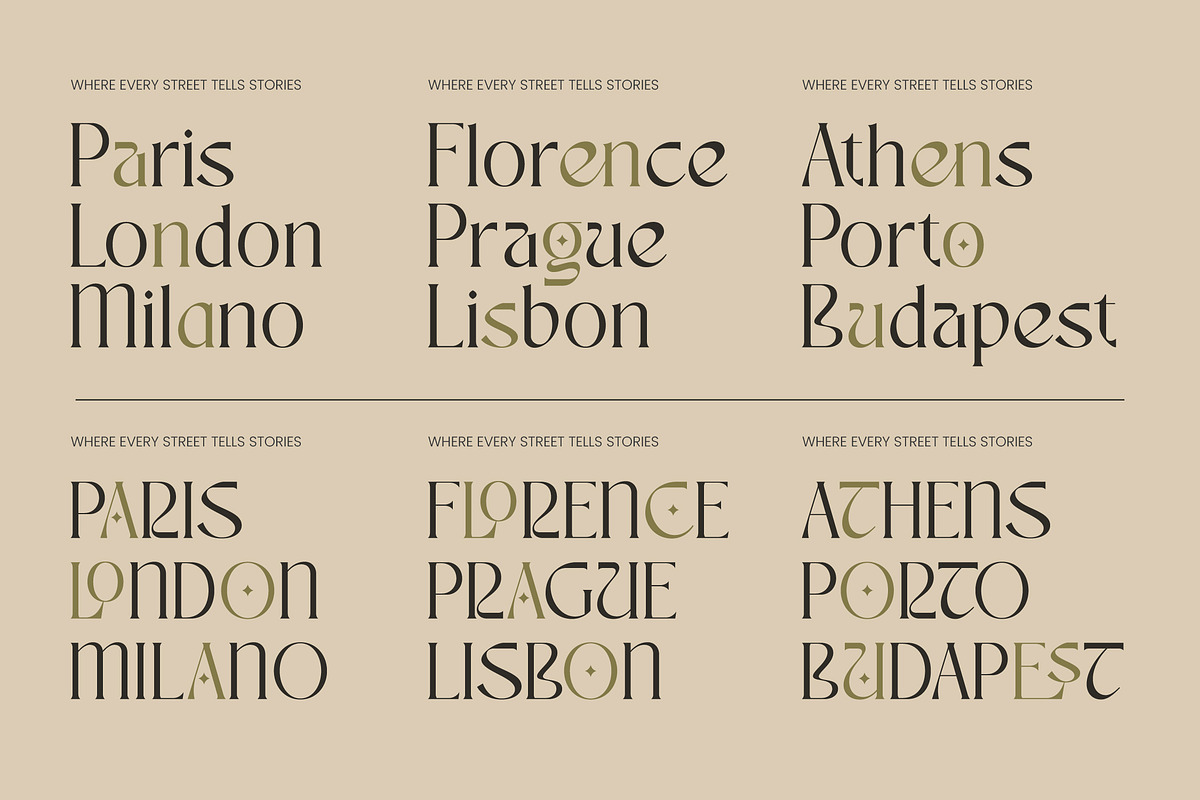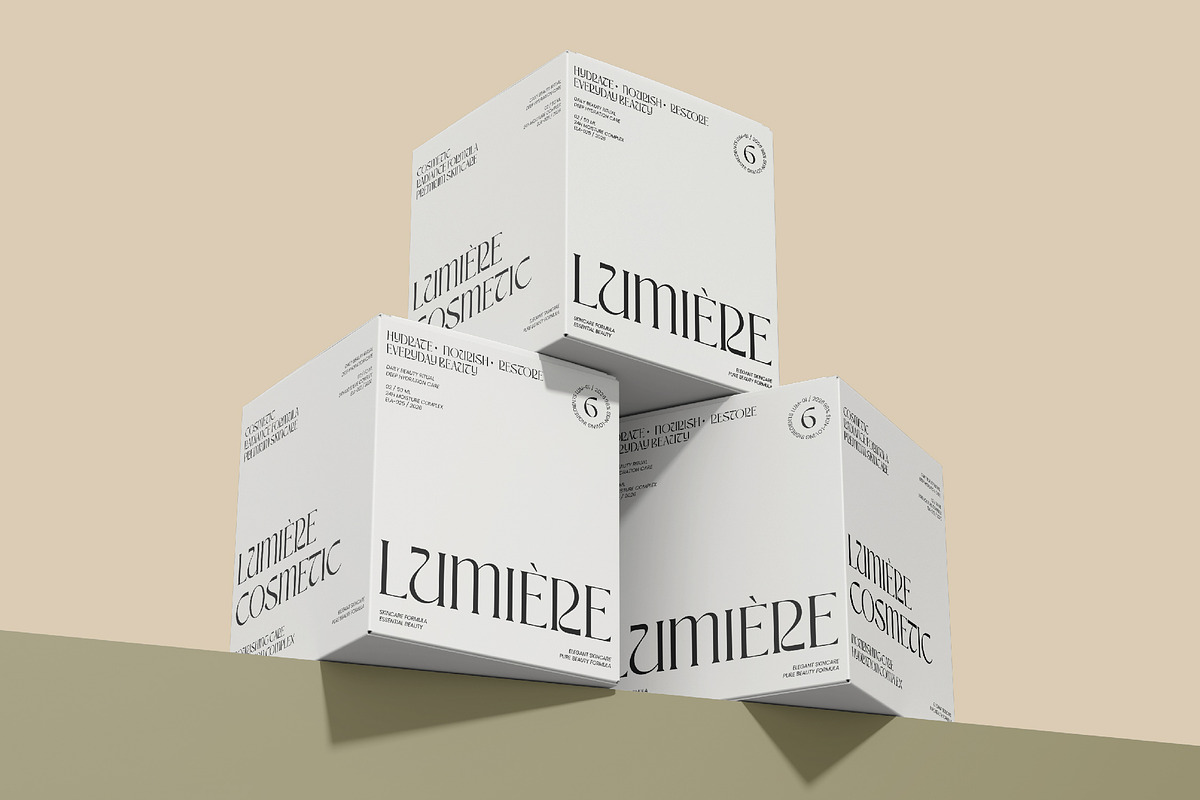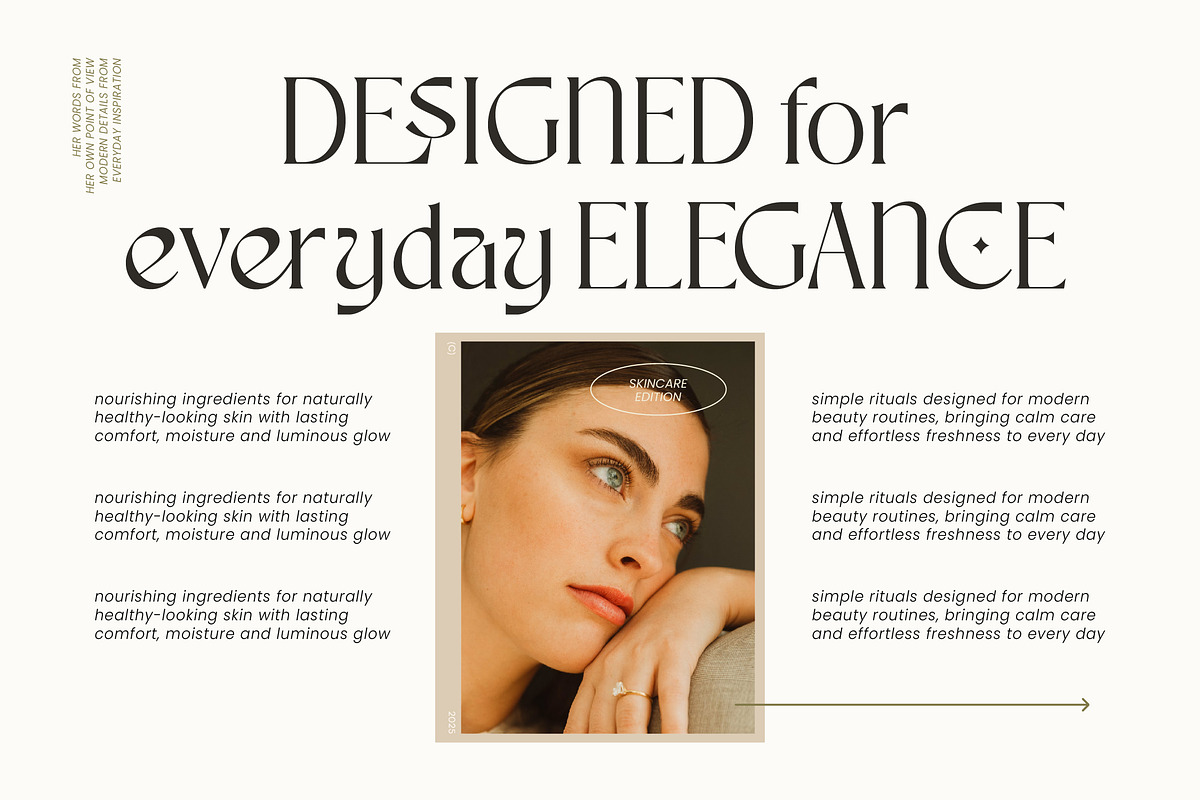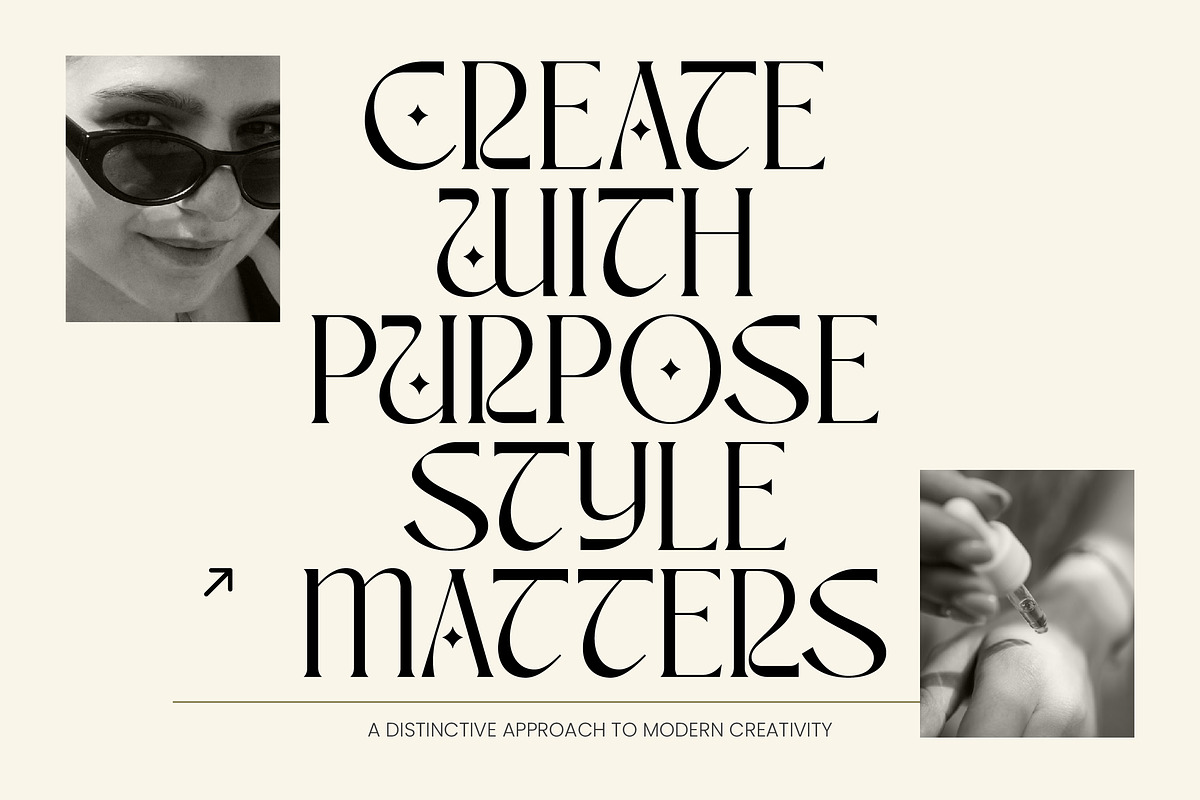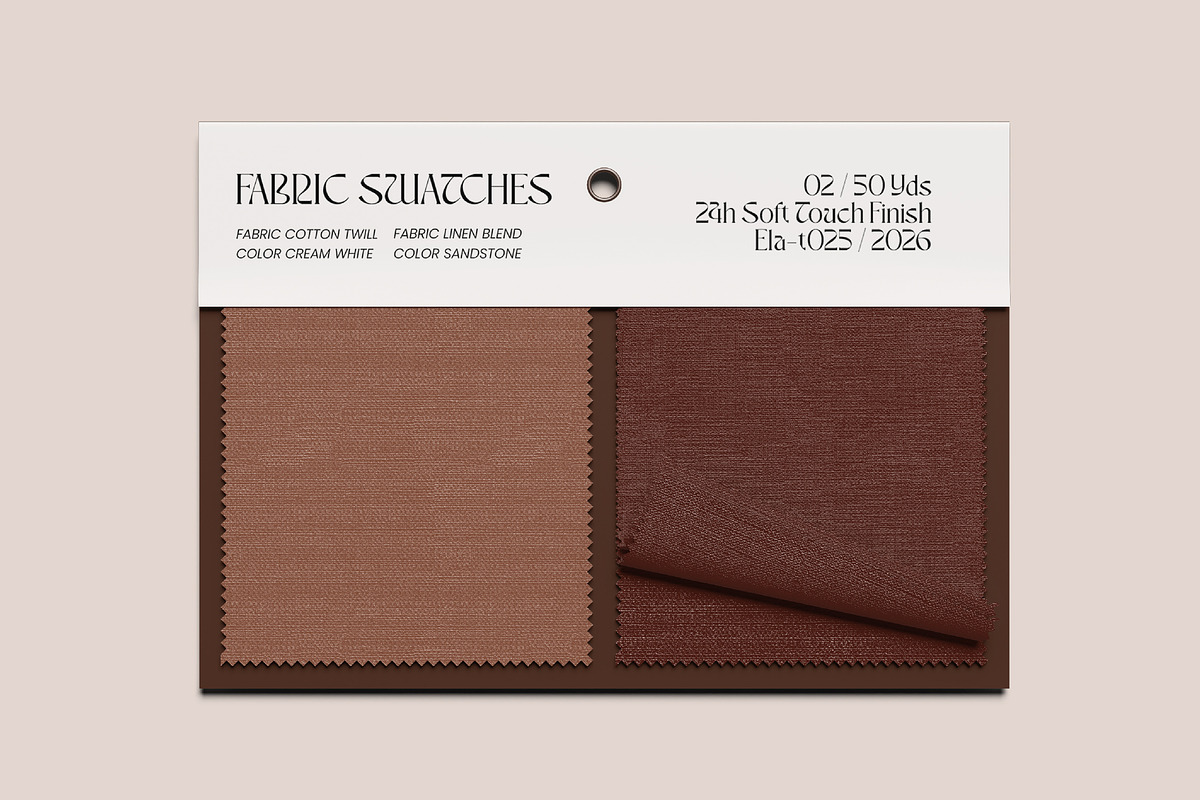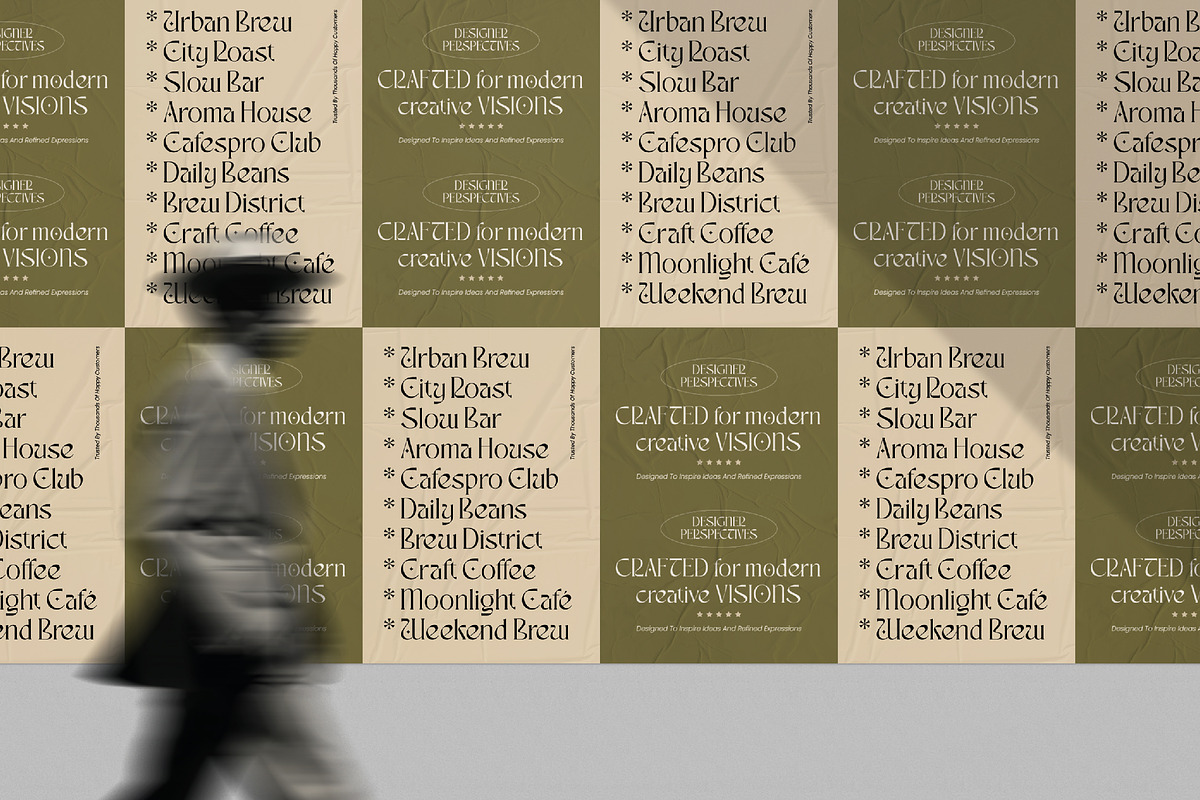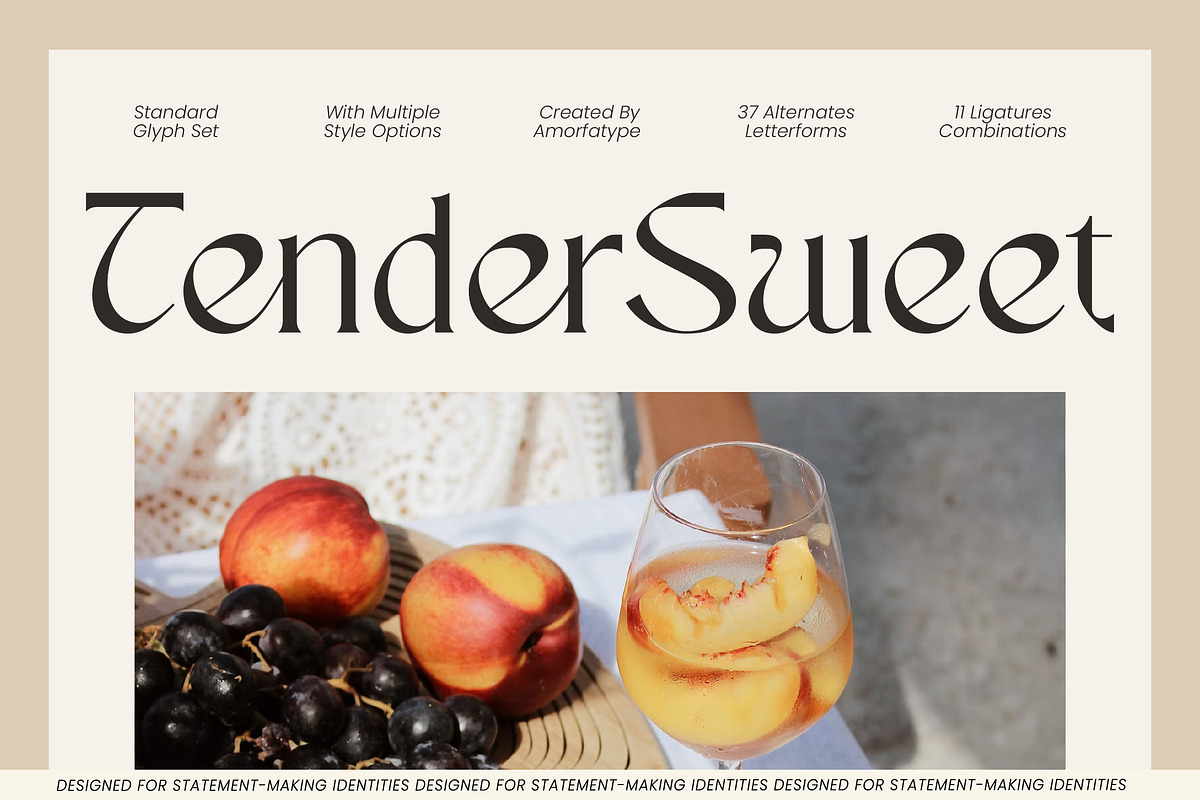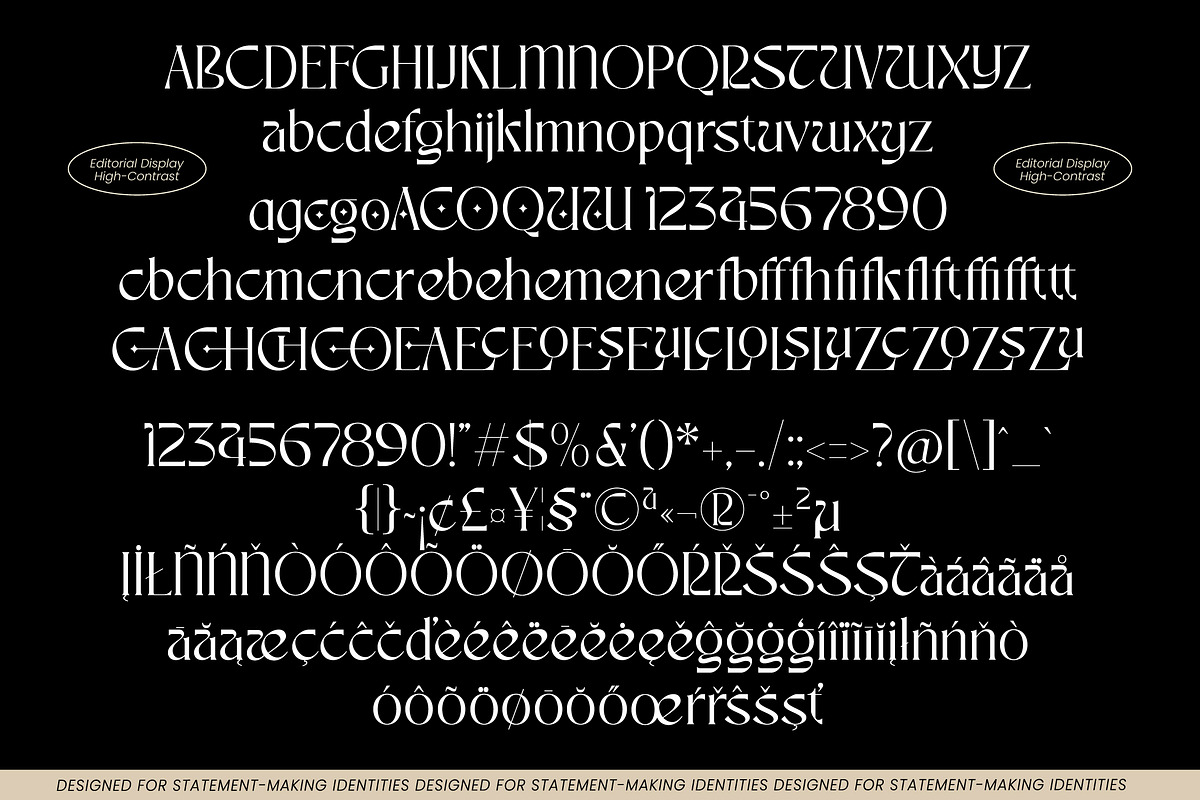
Tender Sweet Modern Editorial Serif
Tender Sweet is a modern editorial display serif crafted to express sophistication, refinement, and contemporary luxury. Designed with elegant proportions, stylish contrast, and distinctive alternate letterforms, it creates typography that feels fashionable, confident, and visually memorable.
Inspired by luxury magazines, fashion editorials, premium branding, and modern packaging design, Tender Sweet balances timeless serif craftsmanship with contemporary aesthetics. The result is a versatile display typeface that performs beautifully across both branding and editorial environments.
Featuring 37 alternates and 11 carefully designed ligatures, Tender Sweet offers creative flexibility while maintaining a polished and cohesive visual identity.
🔡 OpenType Features: 37 Alternates & 11 Ligatures